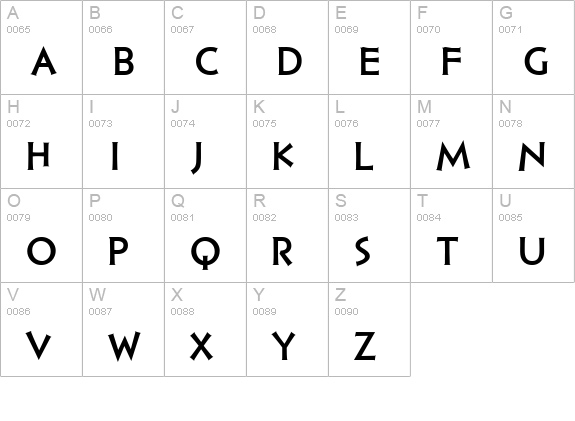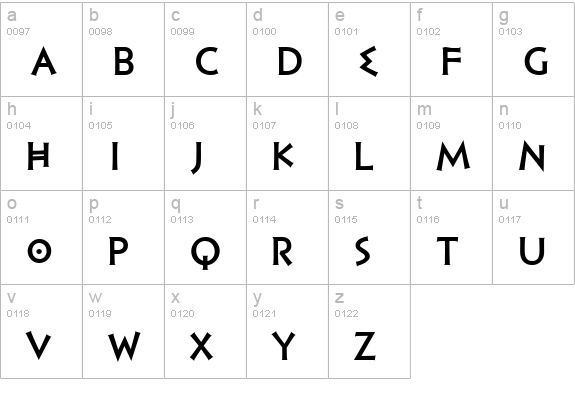
PFHellenicaSerifPro-Bold Font Details
PFHellenicaSerifPro-Bold is a strong, high-contrast variant in the PFHellenicaSerifPro typeface family \xE2\x80\x94 well suited to headlines, attention-grabbing titles, and strong calls-to-action.
PFHellenicaSerifPro-Bold is a versatile and elegant serif font that exudes sophistication and professionalism. Its bold weight commands attention while maintaining readability, making it perfect for headlines, titles, and branding materials. With its classic serifs and refined design, PFHellenicaSerifPro-Bold adds a touch of timeless style to any project. What sets PFHellenicaSerifPro-Bold apart is that it is available for free download at FontsMarket.com. This means that you can enhance your designs with this premium font without any cost, making it a valuable addition to your font collection. Whether you're working on print materials, websites, or presentations, PFHellenicaSerifPro-Bold is sure to elevate your design with its distinctive charm and professional appeal. Download it today and see the difference it can make in your projects.